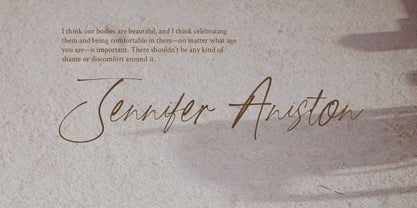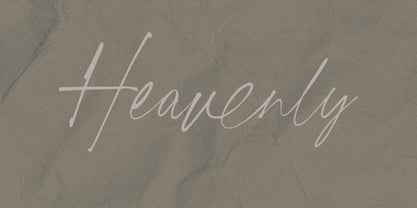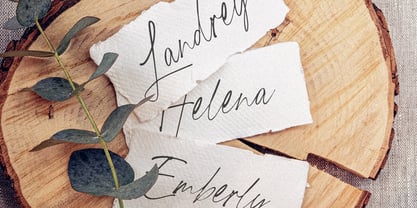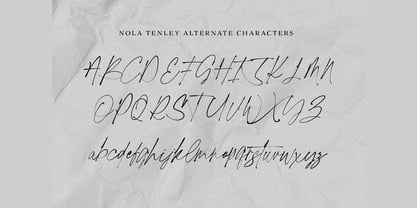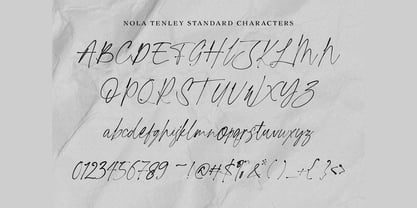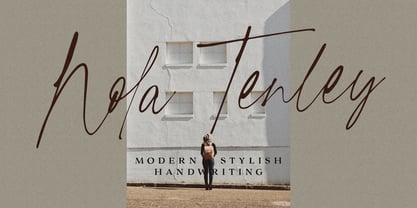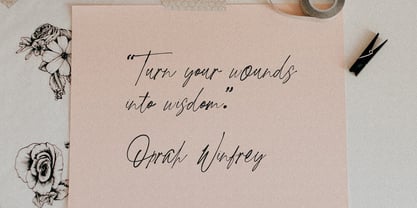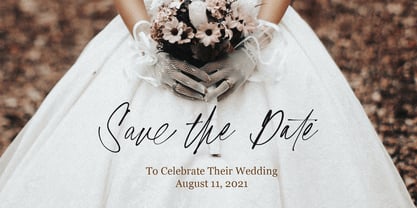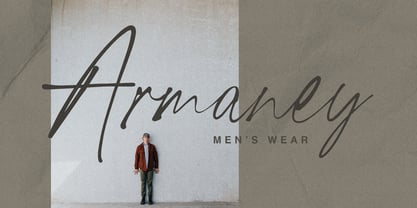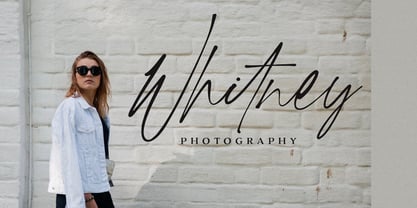
Nola Tenley
by Get Studio
The Nola Tenley Font Family was designed by Hermansyah and published by Get Studio. Nola Tenley contains 1 styles.
Nola Tenley is a stylish modern calligraphy font with casual handwriting. It is perfect for branding, wedding invites, cards, posters, and creating signature logos, and watermarks for a photography studio.
Nola Tenley includes a full set of gorgeous uppercase and lowercase letters, numerals, a large range of punctuation, and lots of ligatures to give a realistic hand-lettered style.
With multilingual support, this font is also suitable for combination with san-serif to get extraordinary results for your design projects.